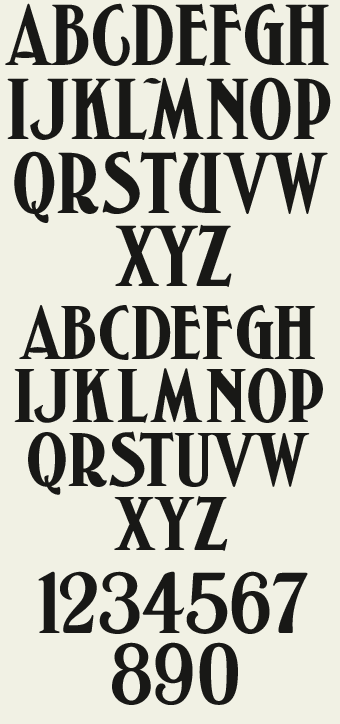
This font would
do well on a magazine cover, old label, or sign. Invokes a classic old fashioned feel without being overbearing or overly decorative. As with all of Gary's fonts, LHF Palmer is a well-constructed and practical typeface. Includes numbers, full punctuation and accents.